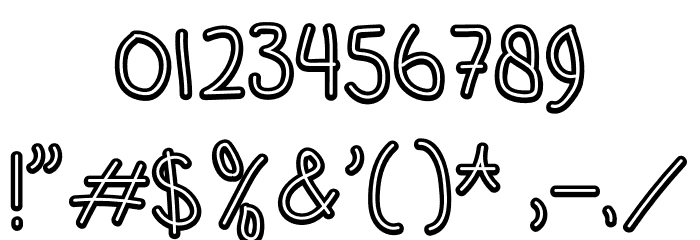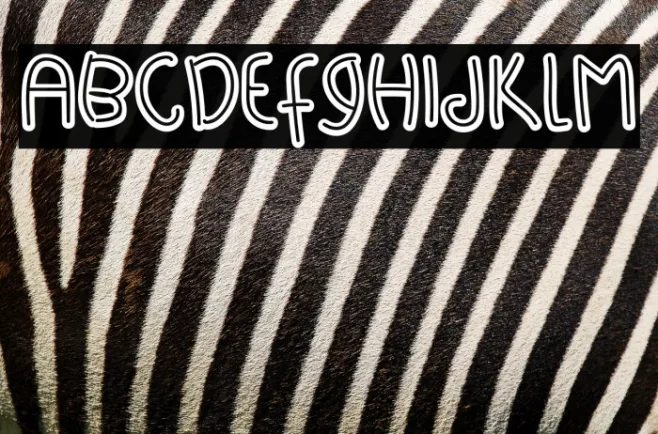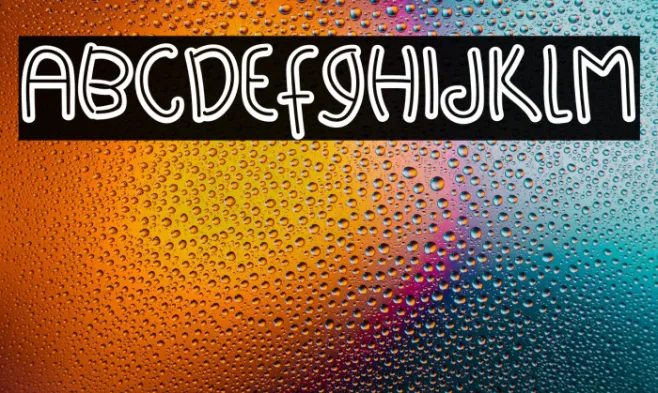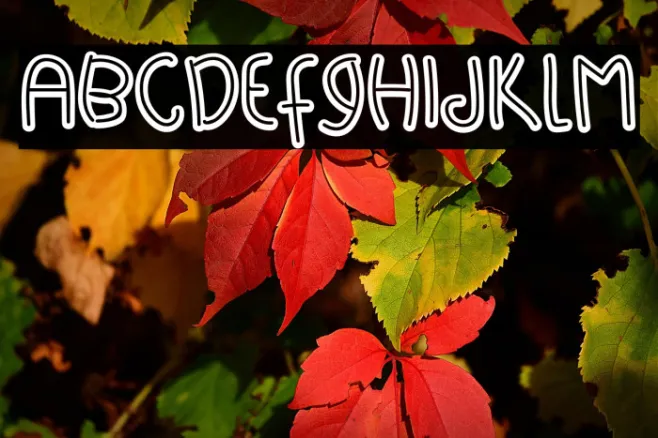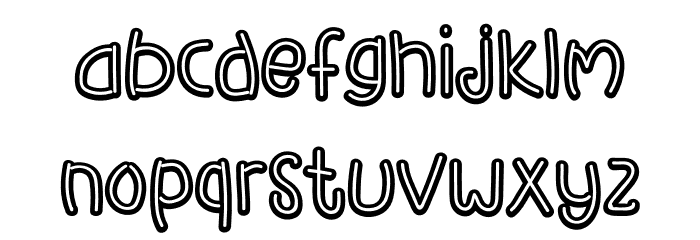
Happy Santa Font
Happy Santa Description
This playful and whimsical font features bold, rounded characters with a double-line outline that gives it a fun, cartoon-like appearance. The letters are evenly spaced and maintain a consistent thickness throughout, contributing to its approachable and friendly vibe. The uppercase and lowercase letters are distinct yet harmoniously designed, making it versatile for various uses. The numbers and special characters follow the same design principles, ensuring uniformity across all elements. This font's unique style makes it ideal for projects that require a touch of humor and creativity.
| Overall Style | Playful, Whimsical |
| Proposed Projects | Ideal for children's books, playful branding, holiday cards, and festive event invitations. |